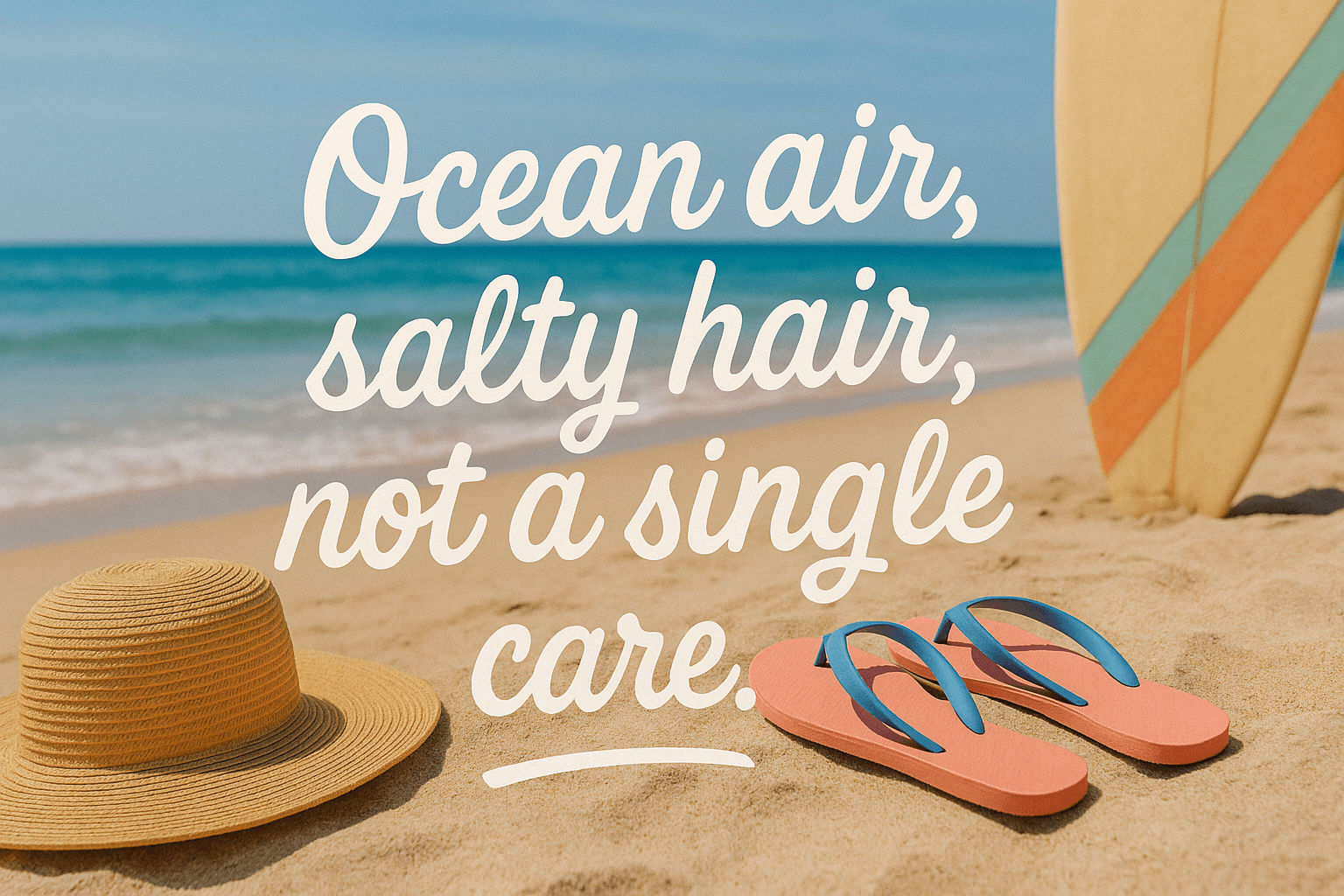
Best Summer Beach Quotes To Capture The Ocean Vibes
There’s something timeless about the beach the rhythm of the waves, the warmth of the sun, the laughter that lingers in the breeze. Whether you’re designing summer graphics, writing social captions, or simply soaking in the season, the best summer beach quotes bring those feelings to life.
These quotes aren’t just words, they’re moments bottled up in text. And when paired with the right fonts, they can turn your designs, t-shirts, or wall art into sun-kissed memories. Additionally, you can edit quotes with Illustrator text effects for more stunning design. Let’s explore the most refreshing summer beach quotes and see how typography can capture that breezy, carefree ocean vibe.
Why Best Summer Beach Quotes Never Go Out of Style
From Pinterest boards to Instagram posts, beach quotes have an irresistible charm. They remind us to slow down, breathe deeply, and enjoy life’s simple pleasures. Using the best summer beach quotes can instantly make your designs relatable, cheerful, and full of wanderlust.
Here’s why they resonate so well:
• They’re universal: Everyone connects with the feeling of summer.
• Visually inspiring: Pair them with coastal imagery and vibrant colors.
• Versatile: Perfect for apparel, social posts, planners, or travel ads.
50 Best Summer Beach Quotes To Capture the Ocean Vibes
Short and Sweet Summer Quotes
• “Sunshine is the best accessory.”
• “Beach hair, don’t care.”
• “Good vibes happen on the tides.”
• “Life’s better in flip-flops.”
• “Eat. Beach. Sleep. Repeat.”
Font Pairing: Summer Heaven (playful handwritten) + Pastiera (clean minimal).
Summer Heaven Font
Pastiera
Ocean Vibes Quotes
• “The ocean stirs the heart, inspires the imagination.”
• “Let the sea set you free.”
• “Saltwater heals everything.”
• “The voice of the sea speaks to the soul.”
• “Live by the currents, plan by the tides.”
Font Pairing: Trevor (classic serif) + Carletone (casual script).
Trevor Font
Carletone - Classy Signature
Beach Life Captions for Social Media
• “Stay salty.”
• “Seas the day.”
• “Tropic like it’s hot.”
• “Shell yeah, it’s summer!”
• “Ocean air, salty hair, not a single care.”
Beach Life Captions For Social Media
Font Pairing: Sticky Sugar (rounded bold) + Loopy Lop (fun handwritten).
Sticky Sugar
Loopy Lop
Inspirational Beach Quotes
• “The waves will always rise again.”
• “Every sunset brings the promise of a new dawn.”
• “Dance with the waves, move with the sea.”
• “Find peace in the rhythm of the tide.”
• “Like seashells, we are beautiful and unique.”
Font Pairing: Slubby Slurpie (soft serif) + Graciast Script (elegant flow).
Slubby Slurpie - Stylish Slab Font
Graciast - Signature Font
Funny Beach Quotes for Summer Humor
• “I’m an aquaholic.”
• “Beach, please!”
• “Resting beach face.”
• “I’m sorry for what I said before my morning swim.”
• “Namast’ay at the beach.”
Font Pairing: Joyfull Summer + Mellow Jello perfect for playful, bold quote graphics.
Joyfull Summer - Handwritten Font
Mellow Jello
Romantic Beach Quotes
• “You, me, and the sea.”
• “Our love is as deep as the ocean.”
• “Kissed by the sun, held by the waves.”
• “Meet me where the sky touches the sea.”
• “Every wave whispers your name.”
Font Pairing: Aurielle Monogram + Janethville Signature ideal for romantic summer designs.
Aurielle Monogram
Janethville - Signature Font
Beach Adventure and Travel Quotes
• “Take me to the ocean.”
• “Find me where the waves are.”
• “Let’s wander where the Wi-Fi is weak.”
• “Adventure awaits at the shoreline.”
• “Sandy toes, sun-kissed nose.”
Font Pairing: Scholar Varsity (bold) + Bright South (modern handwritten).
Scholar Varsity
Bright South Font
Deep and Reflective Ocean Quotes
• “The sea, once it casts its spell, holds you forever.”
• “Waves are not measured by the distance they travel, but by the joy they bring.”
• “To lose yourself in nature is to find peace.”
• “Sometimes you just need the ocean to remind you of your strength.”
• “Beneath the surface lies serenity.”
Font Pairing: Velin Monogram + Fleur Bleue elegant and contemplative.
Velin Monogram
Fleur Bleue - Beautiful Romantic Font